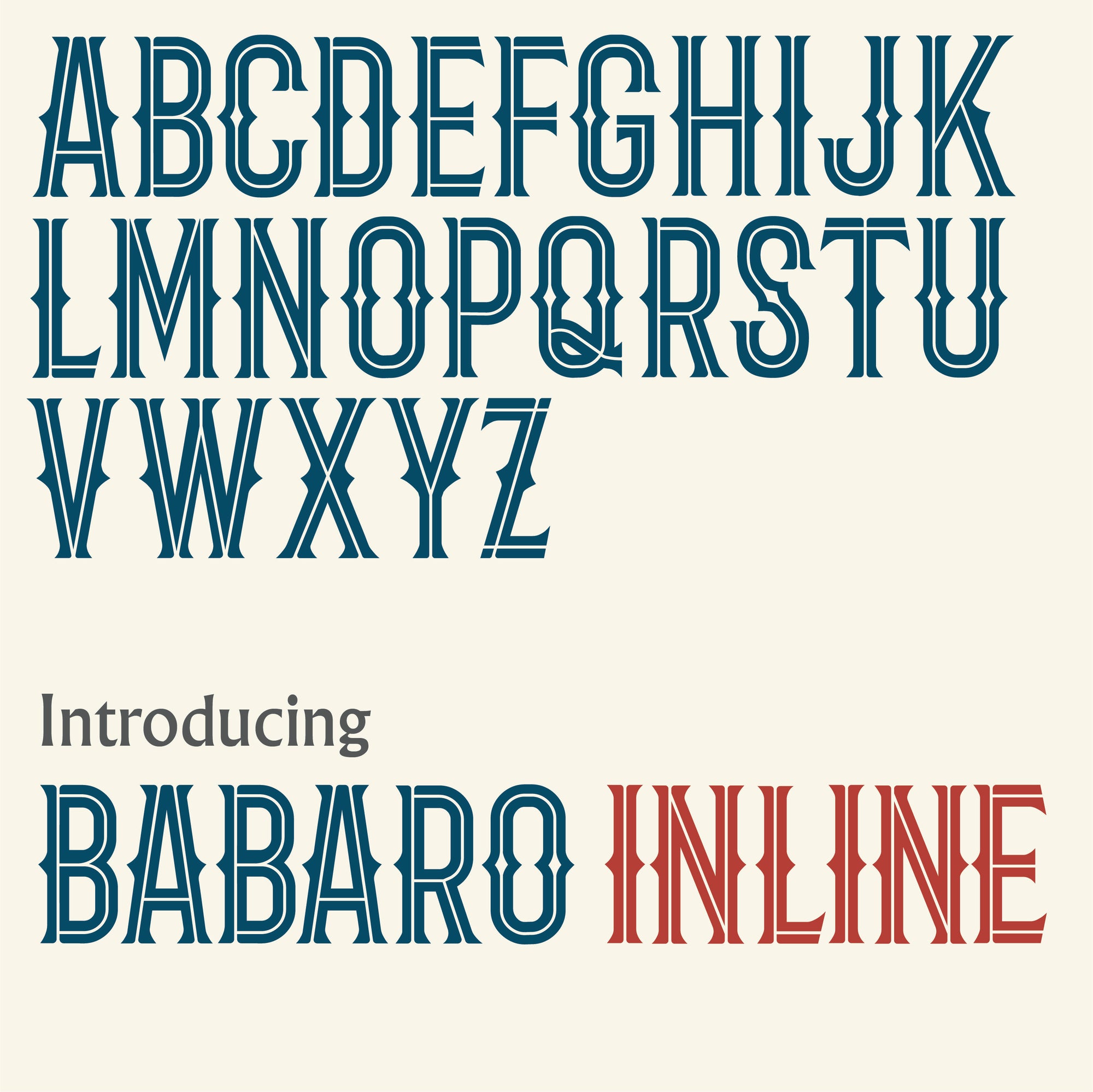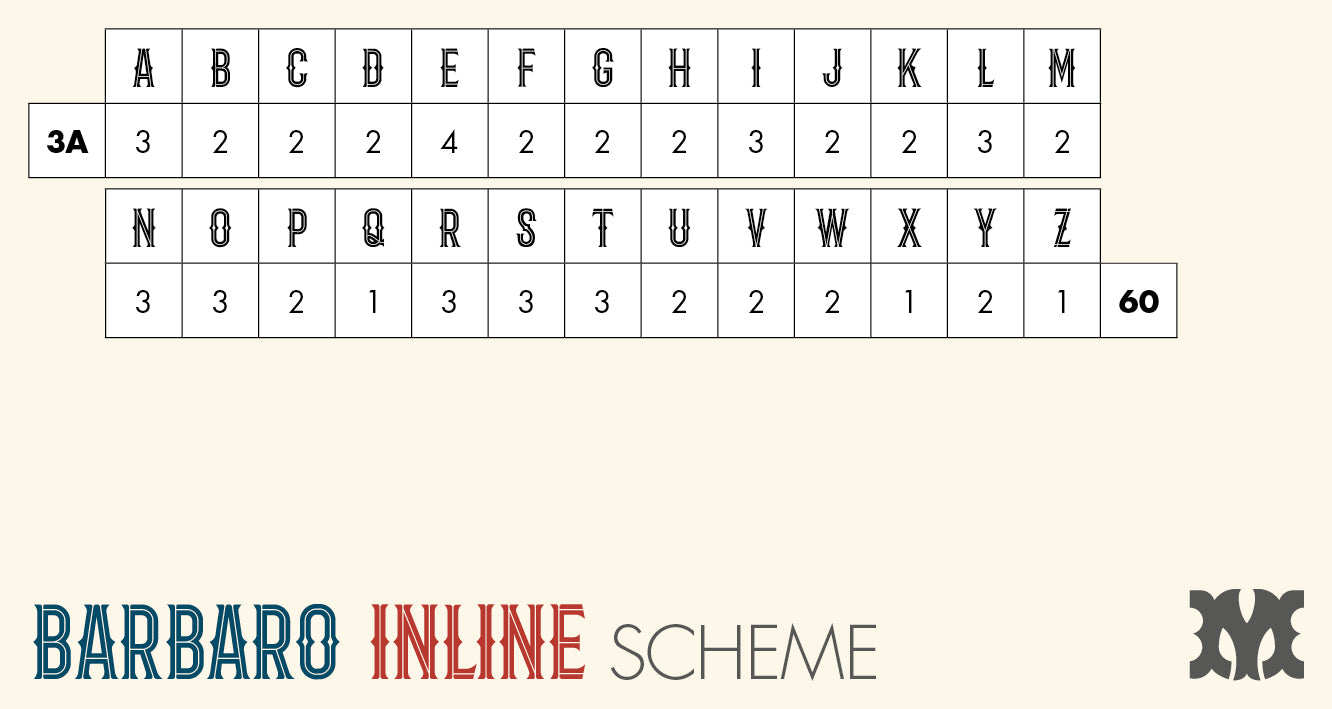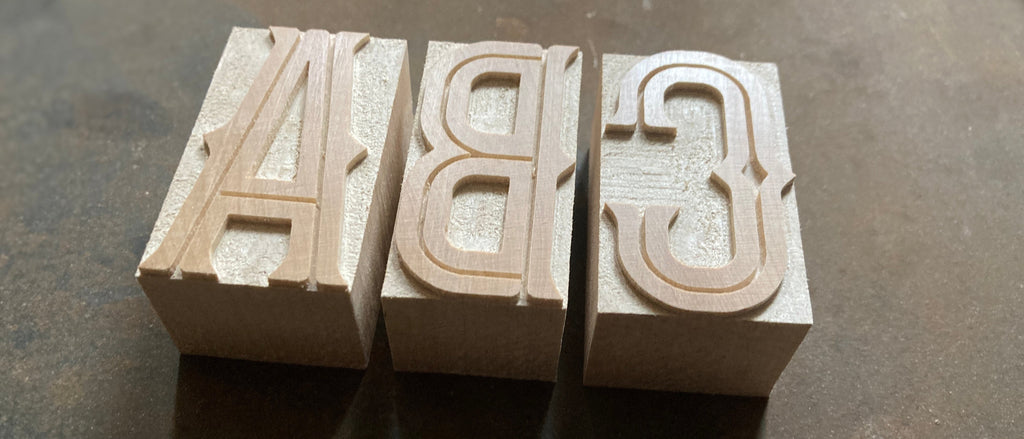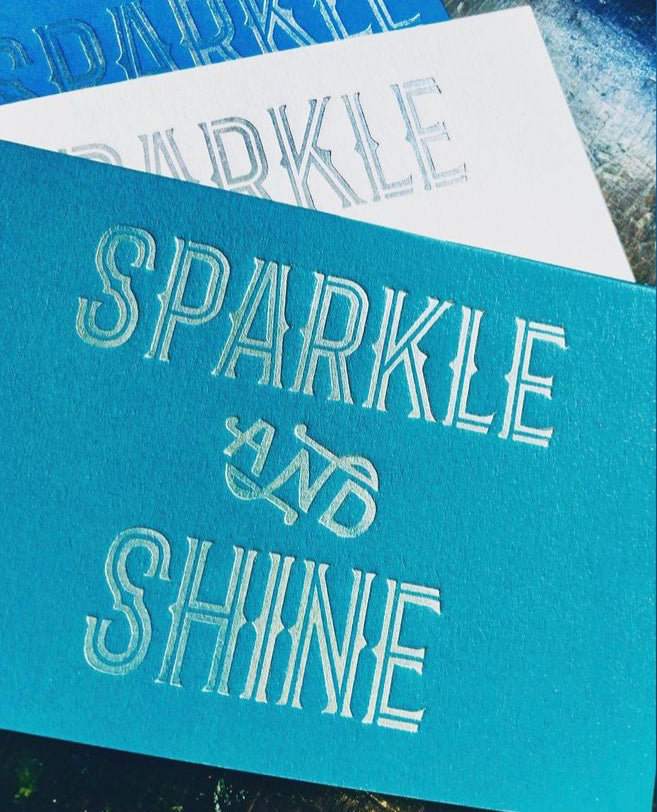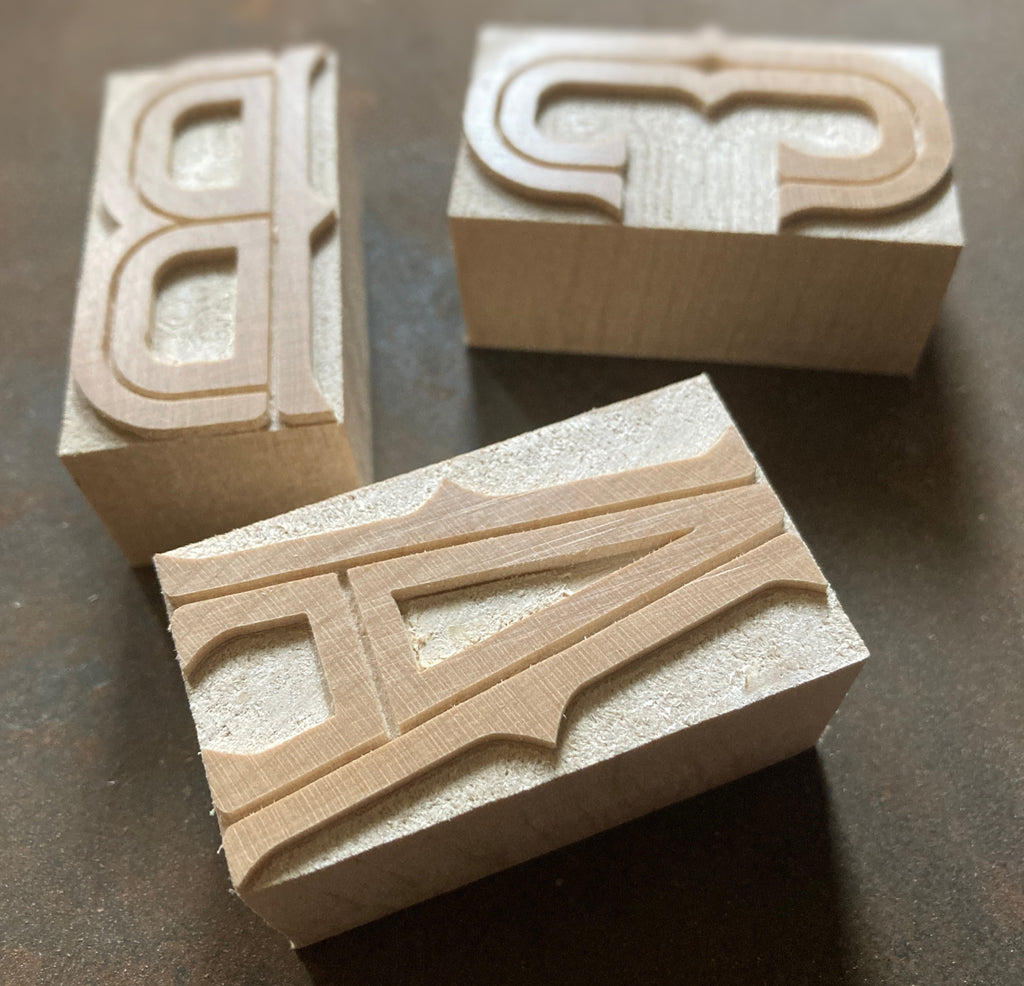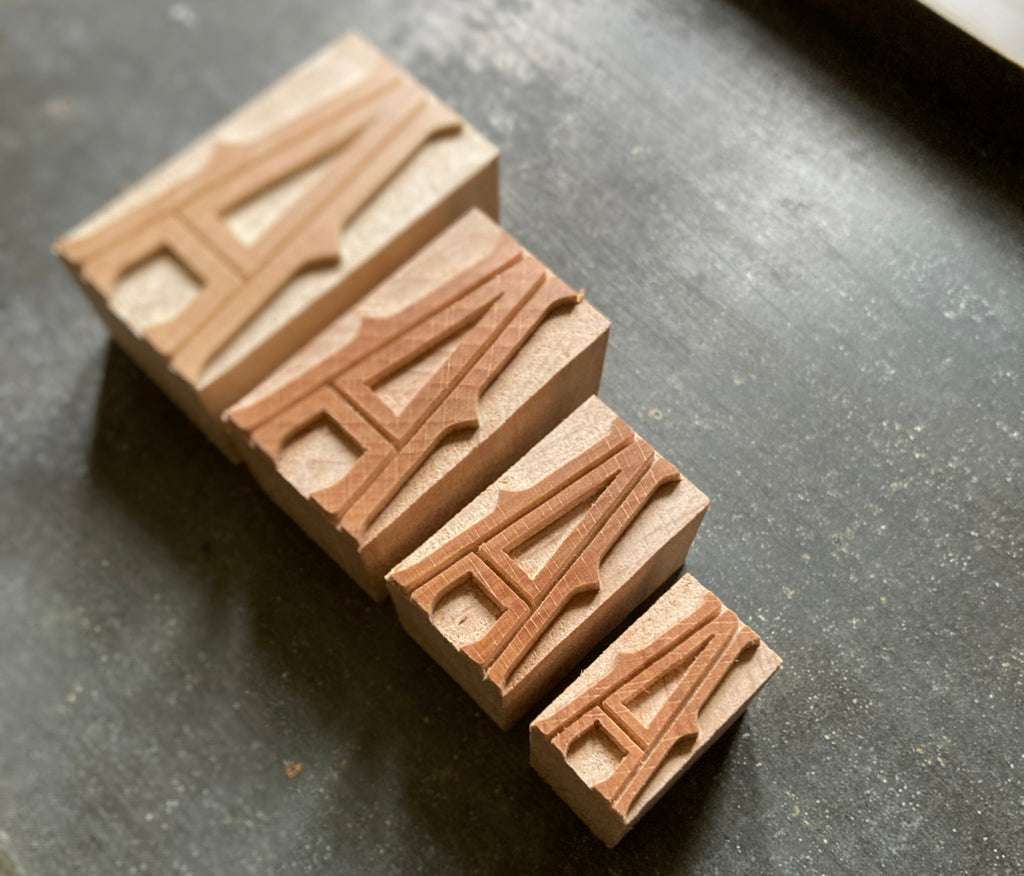
'Barbaro Inline' letterpress woodtype typeface
Introducing 'Barbaro Inline' - designed by Mark McKellier and based on 'Barbaro Western' by Iván Núñez.
Available in 6 line (25.4mm), 8 line (33.8mm), 10 line (42.3mm), and 16 line (67.7mm) versions cut from end grain English hardwood using a combination of modern CNC technology and traditional hand woodworking tools (including an original printers saw), made to English type-high (0.918in or 23.3mm) within plus or minus 0.1mm tolerance, sealed with shellac and hand finished with a traditional polished printing surface.
Printed sample by Little Gem Letterpress.
End grain English hardwood, clear shellac
Each block varies in width however average size is 29mm x 23.3mm x 50.8mm for the 12 line.